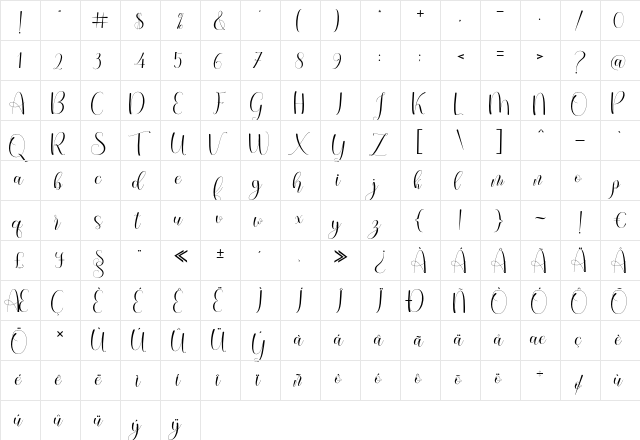
Everytime Script Regular
| Foundry | Soft Creative |
| Designer | Muhajir |
Design Context for Everytime Script Typeface
Everytime Script brings a calligraphic fluidity to the page — its connecting strokes and expressive curves give it an unmistakably human quality.